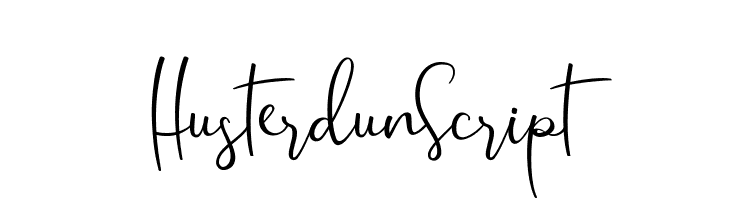
A lively, cursive script font with bold, flowing strokes and a handwritten feel.
A fluid and elegant script font with smooth, flowing lines.
A playful and expressive handwritten font with a casual, flowing style.
A lively and flowing script font with elegant, cursive letterforms.
A modern, elegant handwritten script with fluid, connected letterforms.
A lively, cursive handwritten font with fluid, connected strokes.
A bold, expressive handwritten script font with a modern, artistic flair.
A bold, flowing script font with interconnected characters and a handwritten style.